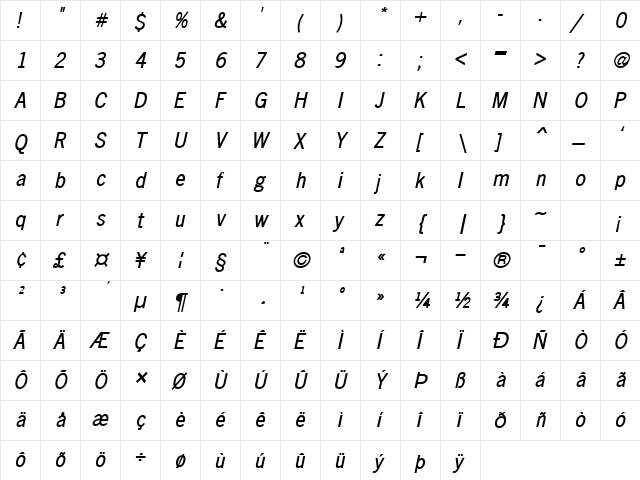
Matterhorn Bold Italic Font Preview
Matterhorn Bold Italic
Design Context for Matterhorn Typeface
Matterhorn is a composed and adaptable typeface that performs quietly and consistently across a wide range of design contexts. The dynamic lean of this cut emphasises speed and emphasis in any layout. The heavy weight commands attention and anchors typographic hierarchies.
Pro Tip: Use Matterhorn for emphasis, pull quotes, and subheadings where its slanted energy can add rhythm to the layout.